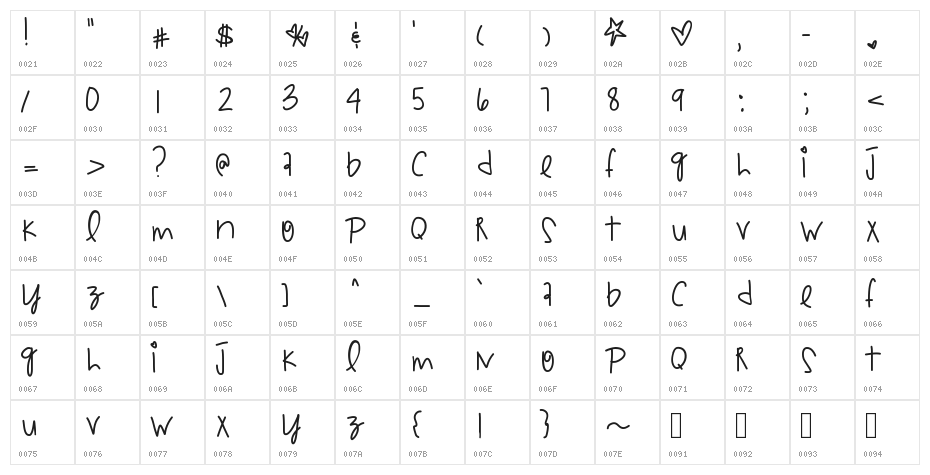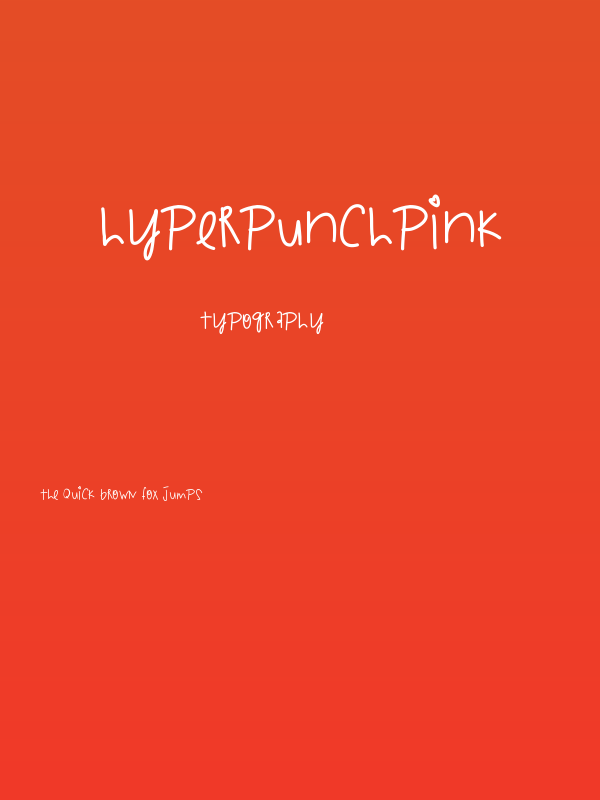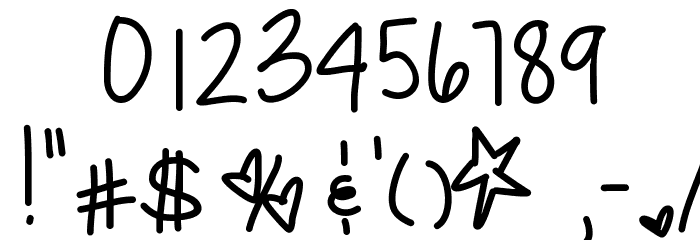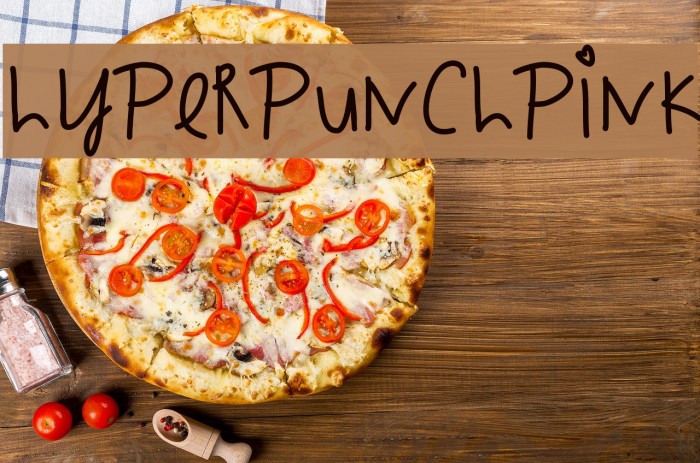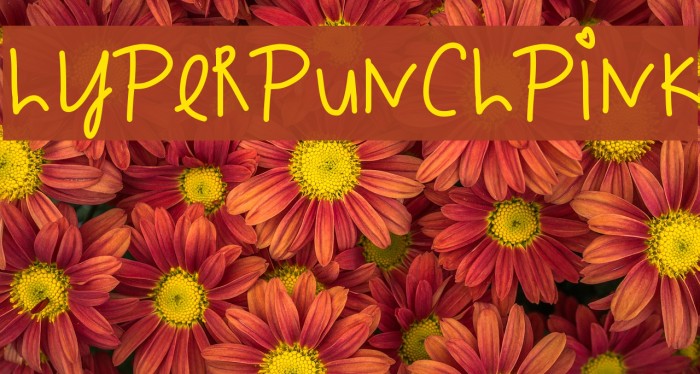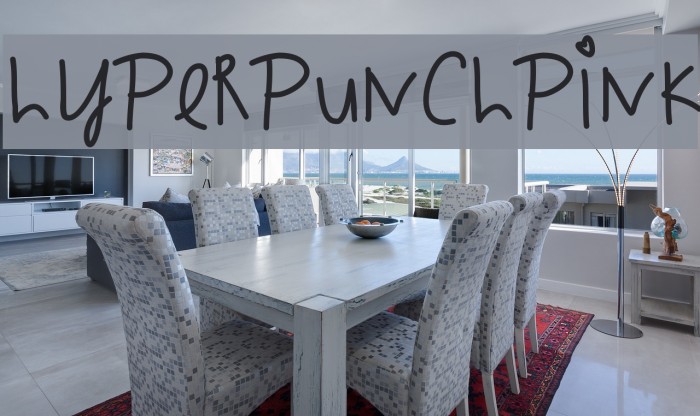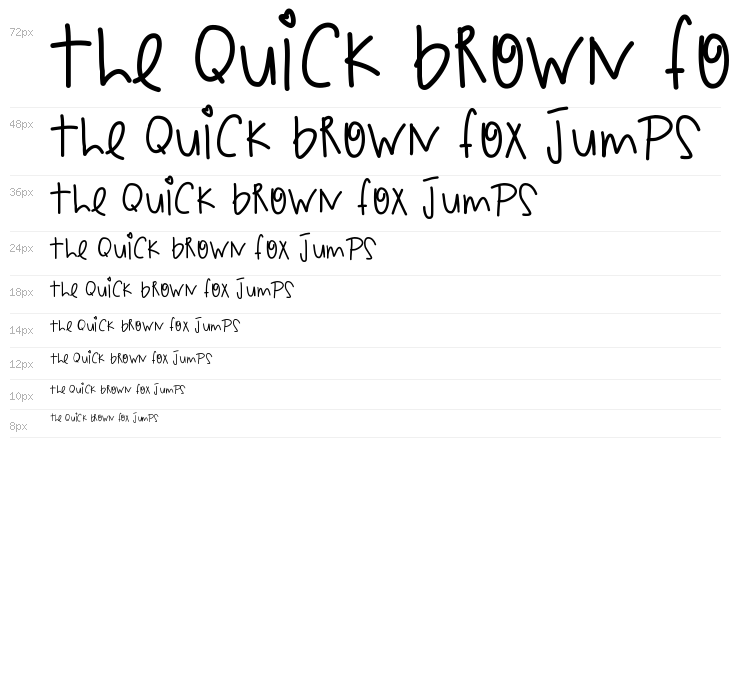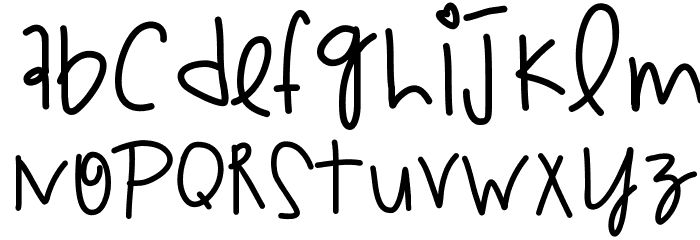
HyperPunchPink Font
HyperPunchPink Description
This playful and energetic handwritten font features a casual and informal style with a touch of whimsy. The letters are slightly irregular, giving it a unique and personal feel. The strokes are bold and rounded, with a consistent thickness throughout, adding to its approachable and friendly appearance. The font includes both uppercase and lowercase letters, numbers, and a variety of special characters, making it versatile for different uses. The overall design is lively and expressive, perfect for projects that require a fun and engaging look.
| Use Case | Logos, Headlines, Informal Invitations |
| Proposed Projects | Ideal for greeting cards, children's books, playful branding, and social media graphics. |